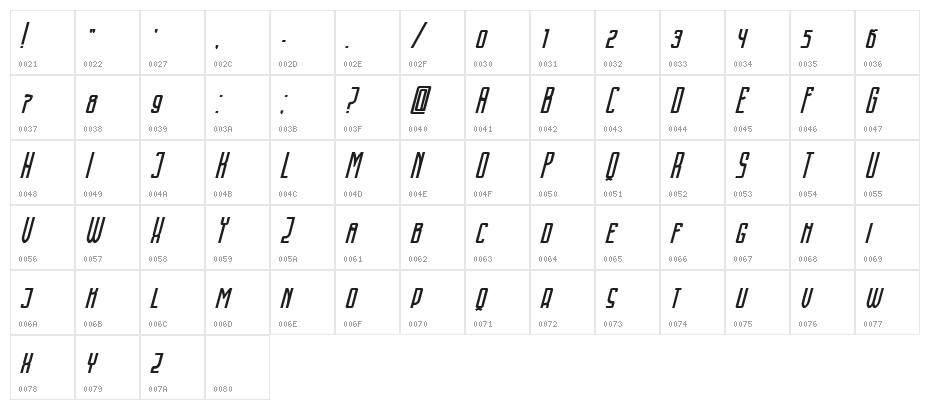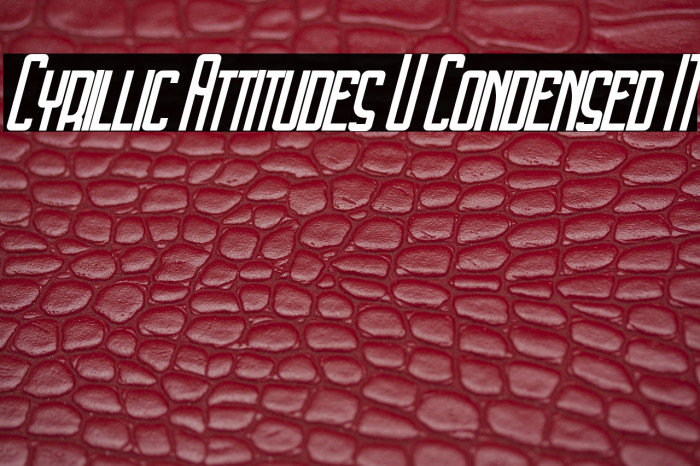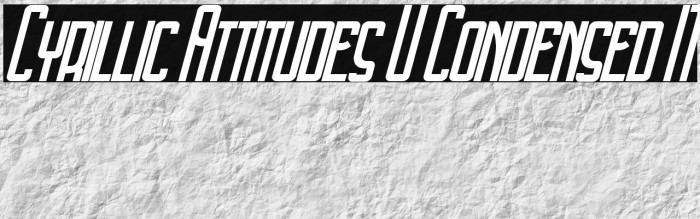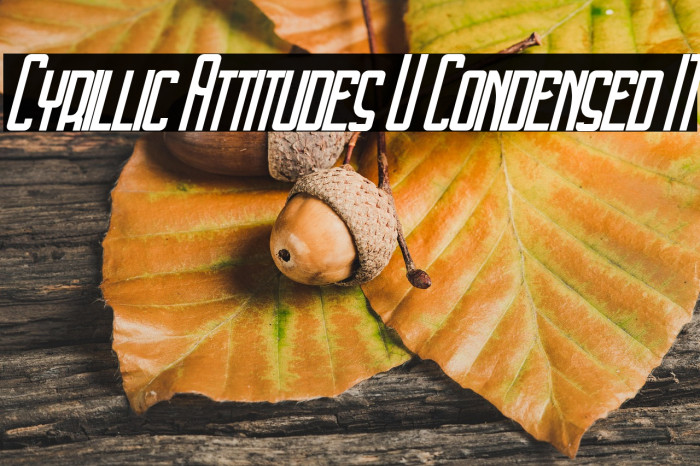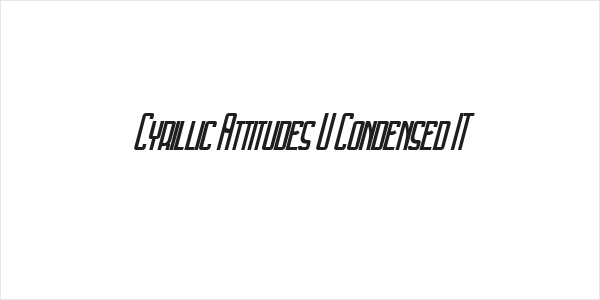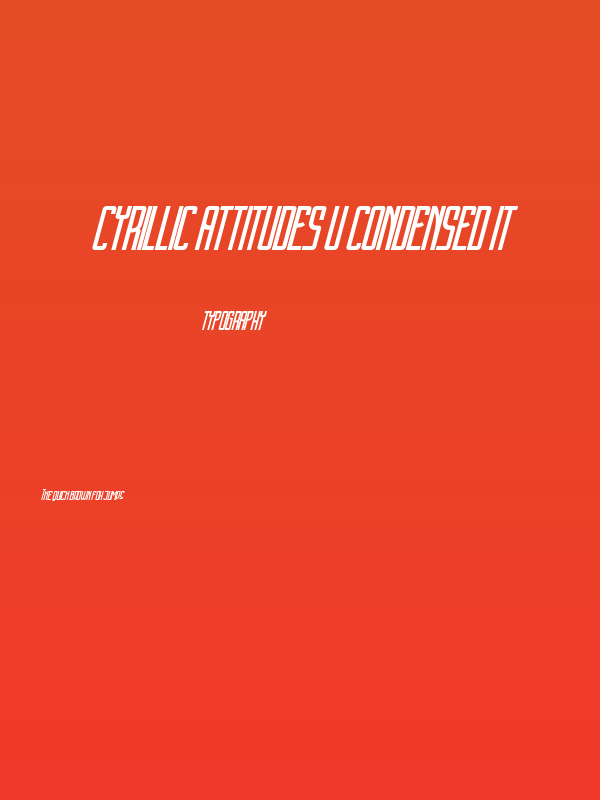
Cyrillic Attitudes U Condensed IT Font
Cyrillic Attitudes U Condensed IT Description
This font features a condensed and italicized style with a modern and dynamic appearance. The characters are elongated and slightly slanted, giving a sense of motion and energy. The uppercase and lowercase letters maintain a consistent height, contributing to a uniform look. The numerals are similarly styled, ensuring cohesion across all character sets. The font's sharp angles and clean lines make it suitable for projects that require a bold and assertive presence. The special characters are designed to match the overall aesthetic, providing a seamless integration with the rest of the typeface.